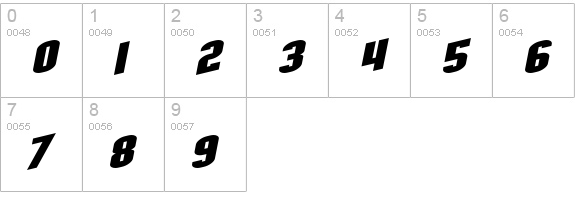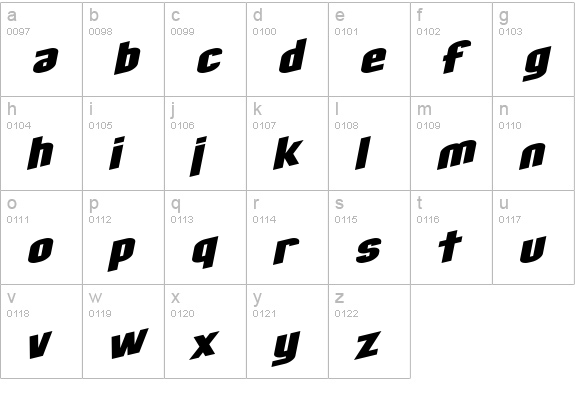
SF Obliquities Extended Font Details
SF Obliquities Extended is a distinctive, extended-width variant in the SF typeface family \xE2\x80\x94 well suited to design and typography projects.
SF Obliquities Extended is a stunning font that effortlessly combines elegance and modernity. With its sleek and slanted design, this typeface adds a touch of sophistication to any project. Its clean lines and unique letterforms make it perfect for a wide range of applications, from branding and packaging to editorial design and web content. What sets SF Obliquities Extended apart is its versatility. Whether you're looking to create a sleek and professional logo or a bold and eye-catching headline, this font has you covered. Its extended character set includes a wide range of letters, numbers, and symbols, allowing you to express your creativity without limitations. One of the best features of SF Obliquities Extended is that it is free. That's right, you can download this incredible font for absolutely no cost at FontsMarket.com. This means that you can bring a touch of elegance to your designs without breaking the bank. It's a font that caters to both professional designers and enthusiasts, providing them with a high-quality typeface that is accessible to all. Whether you're a graphic designer working on a client project or a student looking to add some flair to your school assignments, SF Obliquities Extended is the font for you. Its seamless blend of style and versatility makes it an indispensable tool in any designer's arsenal. So why wait? Head over to FontsMarket.com and download SF Obliquities Extended today. Your designs will thank you.